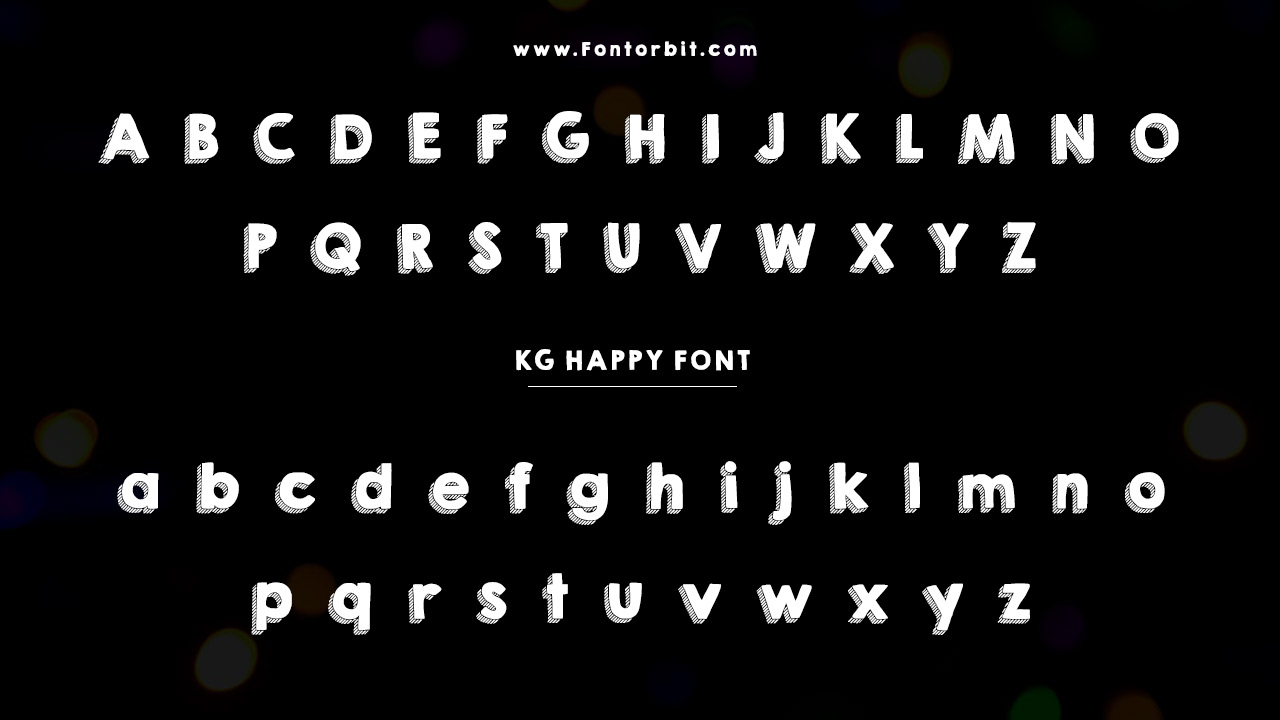
KG Happy Font is a decorative, layered typeface designed by Kimberly Geswein, perfect for trendy chalkboard art and playful designs. Featuring 3 styles-Regular, Shadows, and Solid-this font is versatile, easy to layer, and widely used in creative projects. Its bold, decorative nature makes it ideal for logos, wedding fonts, advertisements, and other modern design needs.
Kg Happy Font At A Glance
- Designer: Kimberly Geswein
- Styles: 3 (Regular, Shadows, Solid)
- Font File Details: Includes a character map of glyphs with uppercase, lowercase, numbers, and symbols.
Type Of The KG Happy Font (Font Family)
KG Happy Font belongs to the decorative fonts category, known for its charm and flexibility. The family includes the following styles:
- KG Happy Regular
- KG Happy Solid
- KG Happy Shadows
Each style can be layered to create a 3D effect or used individually for bold, trendy designs.
Where The KG Happy Font Found In Use
KG Happy Font is perfect for projects requiring eye-catching visuals and playful aesthetics. Common use cases include:
- Trendy chalkboard art designs
- Wedding stationery and invitations
- Posters, flyers, and advertisements
- Logos and branding materials
- Social media graphics
- Printed materials like menus and banners
This font is often paired with script fonts, vintage fonts, or bold typefaces for a complete design package.
KG Happy Font by Kimberly Geswein is a modern, decorative font family ideal for bold, playful, and creative designs. With its 3 styles and versatility, it’s perfect for projects like wedding invitations, advertisements, social media graphics, and chalkboard art. Its popularity stems from its bold design and ability to bring a fun, trendy vibe to any project.
1. What Are The Characteristics Of KG Happy Font?
KG Happy is a layered decorative font family by Kimberly Geswein, designed for trendy chalkboard art. It features three styles—Regular, Shadows, and Solid—that can be combined to create 3D, multi-colored effects. Its playful and bold design makes it a popular font for creative projects like logos, advertisements, and printed materials.
While KG Happy is ideal for playful and creative projects, its decorative style may not suit more formal projects that require minimalism or high readability. For such cases, modern fonts or regular fonts might be better alternatives.
4. How Can I Use KG Happy Font To Create Unique Designs?
You can layer the three styles (Regular, Shadows, Solid) to build colorful, trendy chalkboard art effects. Combine it with script fonts or vintage fonts for a striking contrast. Using font colors and adding shadows can make the text stand out in projects like wedding invitations or advertisements.
5. What Makes KG Happy Font Different From Other Decorative Fonts?
Its layering feature is unique, allowing users to create multi-dimensional effects with ease. The font’s bold strokes and playful design set it apart from other graffiti fonts or retro fonts, making it a favorite for fancy fonts enthusiasts.
8. How Does KG Happy Font Work For Branding Projects?
KG Happy is ideal for brands that want to convey a playful, modern, or vintage aesthetic. Its bold design works well for logos, printed materials, and advertisements. Pairing it with script fonts or calligraphy fonts adds versatility to branding efforts.